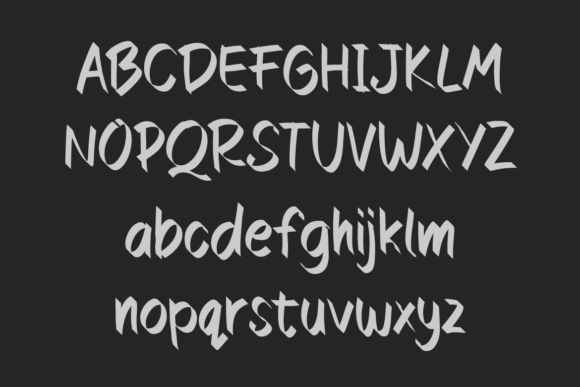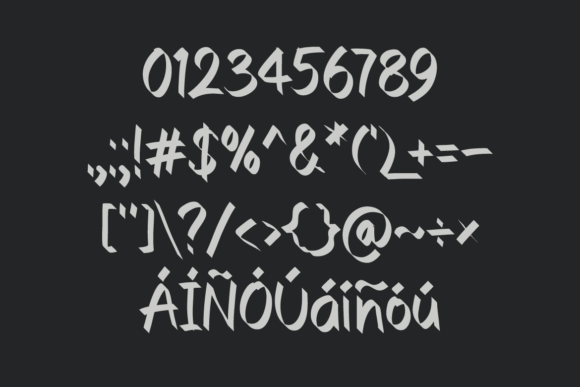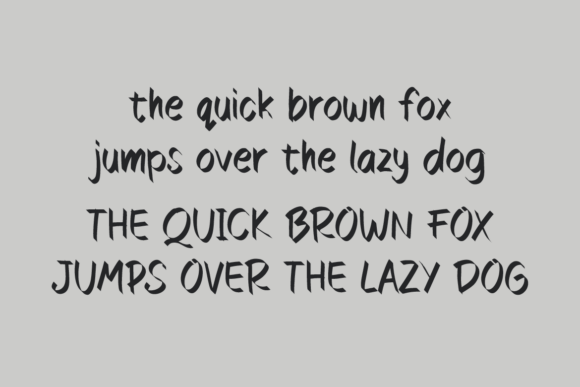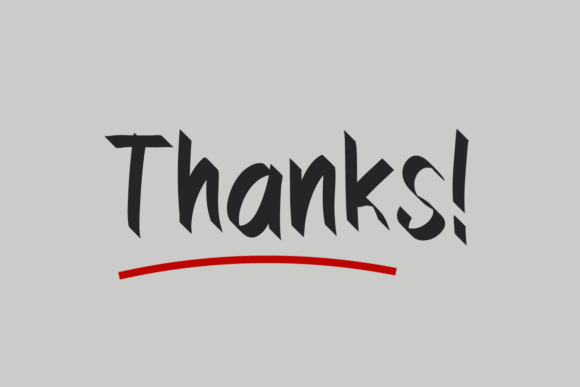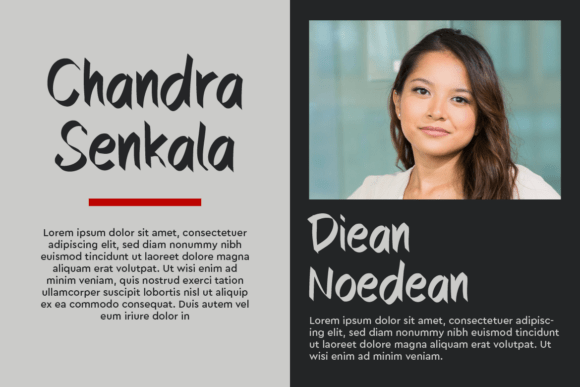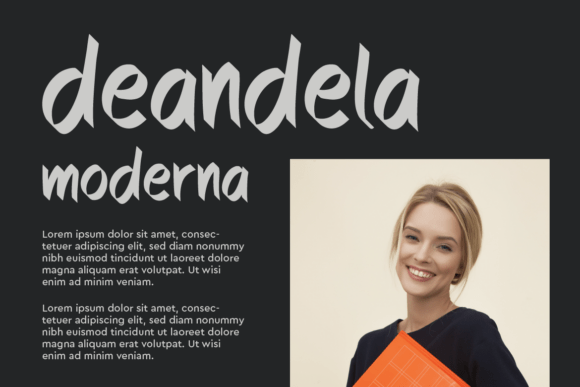
Introduction to Mellata Font Font
Fonts play a crucial role in design, and the Mellata Font font is a typeface that brings both character and versatility to any project. Whether you’re working on a branding project, a website, or a print design, the Mellata Font font offers a unique style that can elevate your work.
Mellata is a modern handwritten font that combines the elegance of natural pen strokes with a casual and approachable style.
Its flowing curves and smooth lines create a sense of warmth and authenticity, making it perfect for branding, wedding invitations, product packaging, social media graphics, and creative projects that need a personal touch .
Key Features of Mellata Font Font
Why Choose Mellata Font Font?
The Mellata Font font is more than just a typeface – it’s a design tool that helps you communicate your message with style and clarity. Its unique character set and versatile design make it suitable for a wide range of applications, from elegant invitations to bold headlines.
With its carefully crafted letterforms and balanced proportions, the Mellata Font font ensures readability and visual appeal across all mediums.
What makes Mellata Font font special?
The Mellata Font font stands out with its unique design, exceptional readability, and versatility across various design applications.